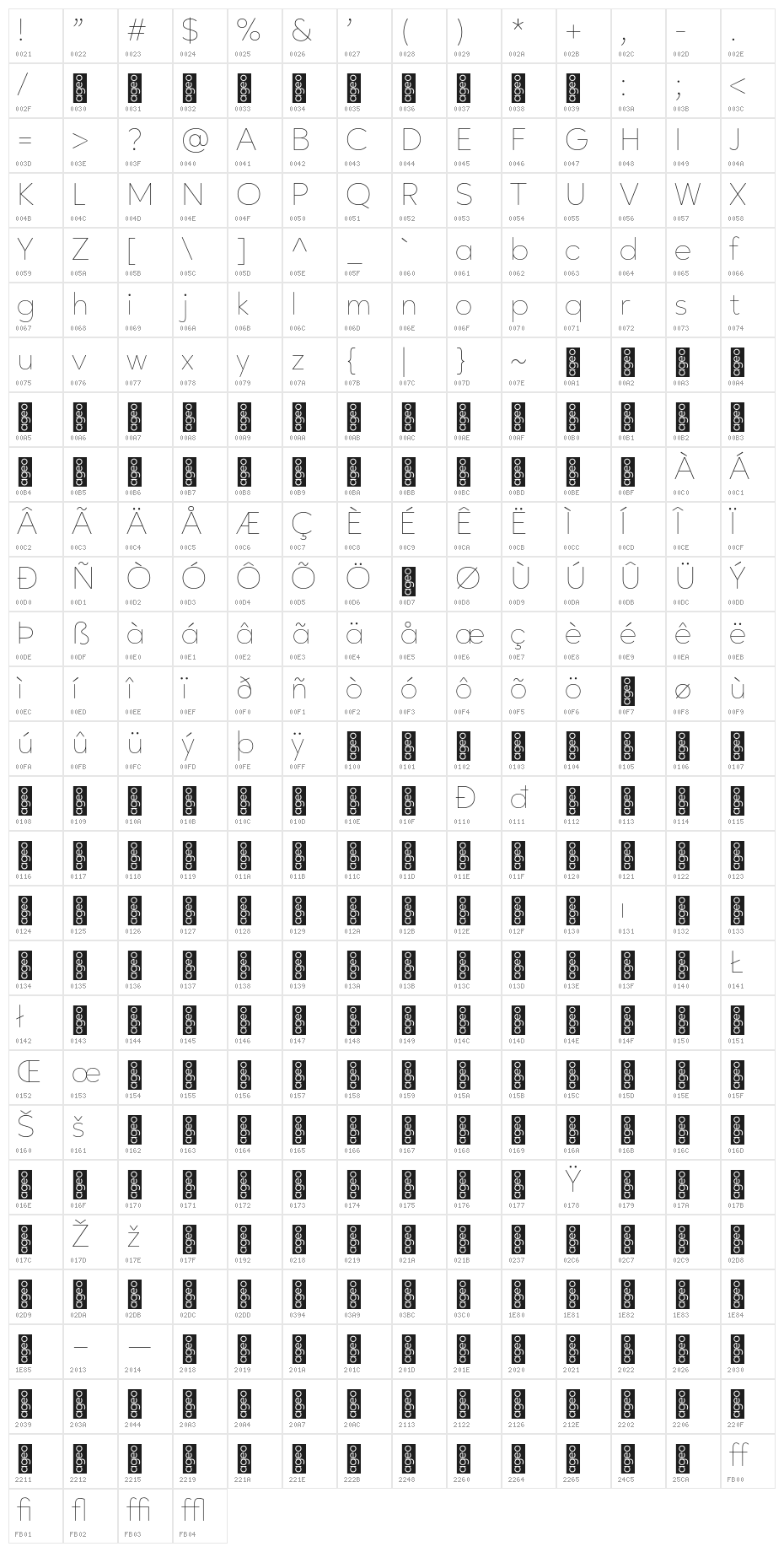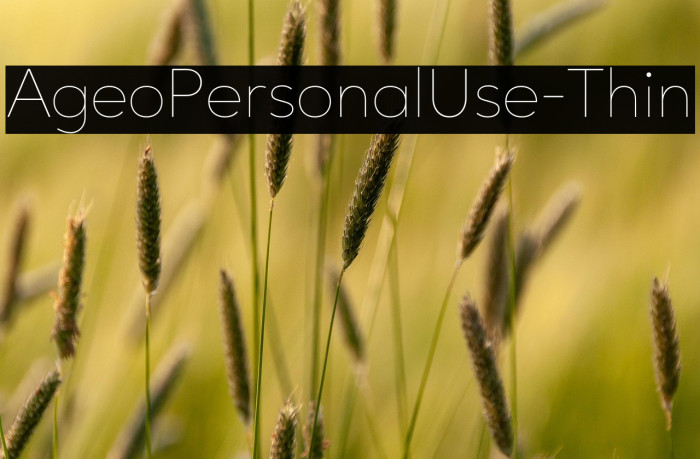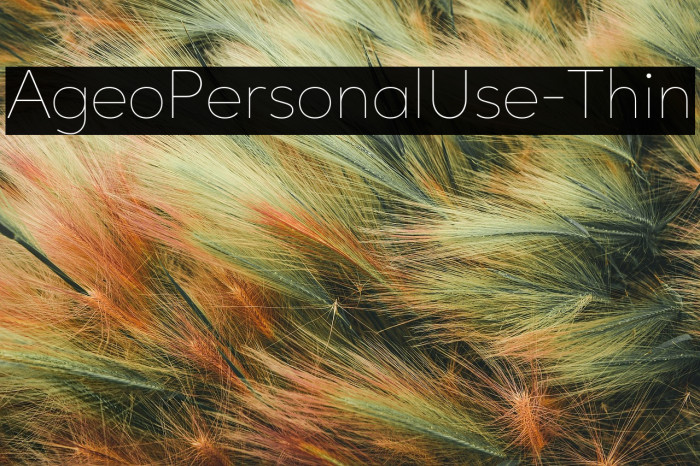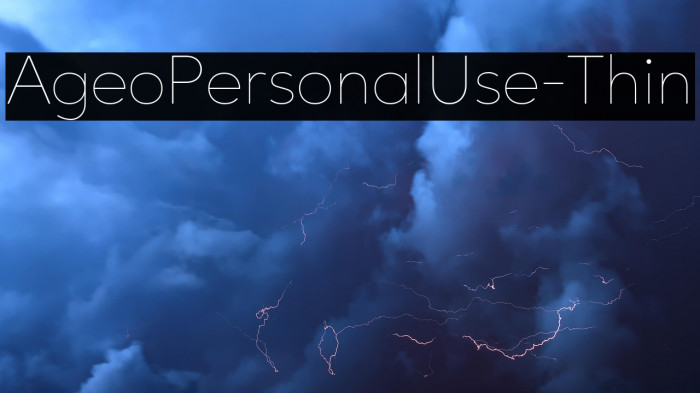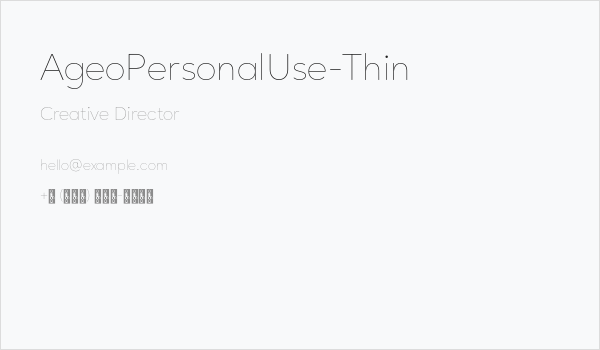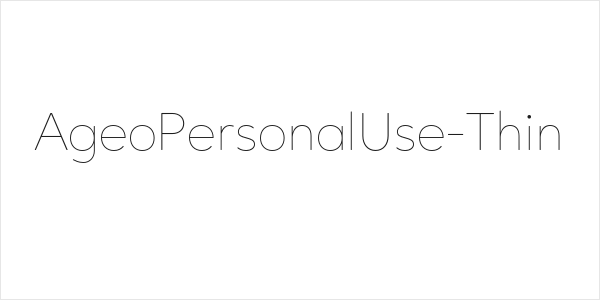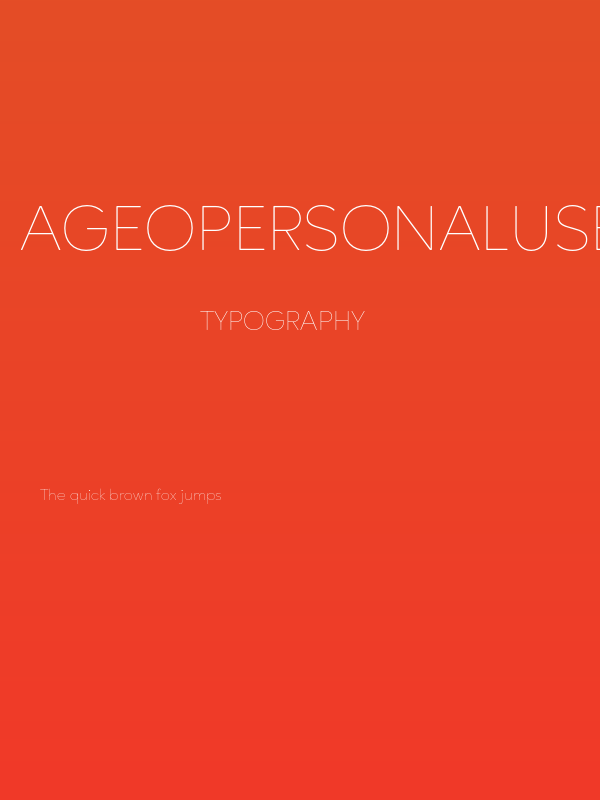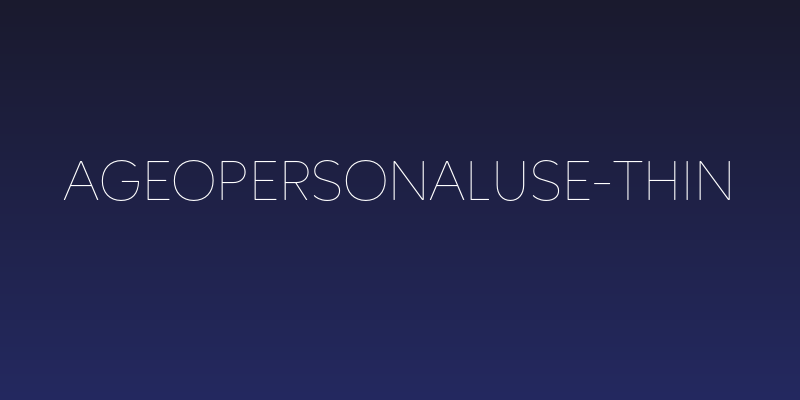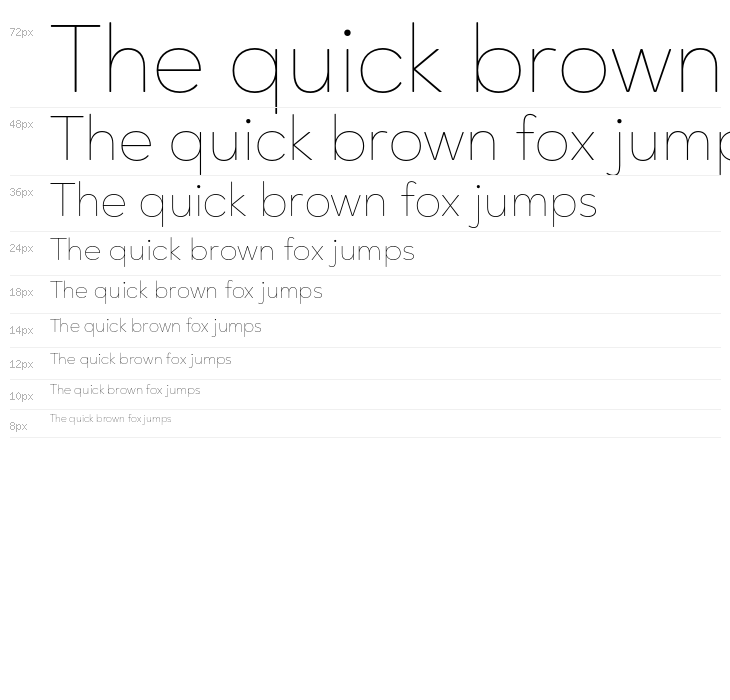
AgeoPersonalUse-Thin Font
AgeoPersonalUse-Thin Description
This font features a sleek and modern design with thin, clean lines that give it a minimalist and contemporary appearance. The characters are evenly spaced and maintain a consistent height, contributing to its readability and elegance. The uppercase and lowercase letters are well-proportioned, with a geometric influence that is evident in the circular shapes of the 'o' and 'e'. The numerals and special characters are designed to match the overall aesthetic, providing a cohesive look across all elements. This font's simplicity and clarity make it versatile for various design applications.
Proposed ProjectsIdeal for branding, editorial design, minimalist posters, and digital interfaces.